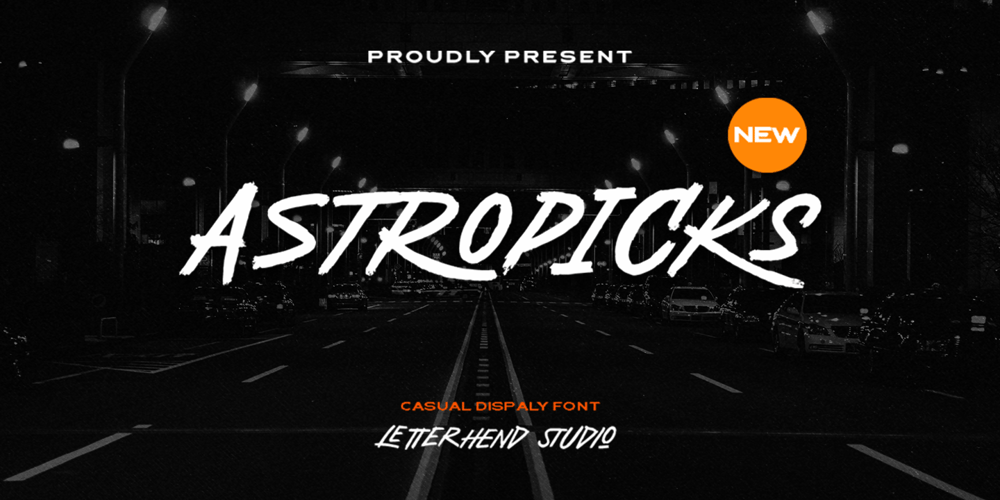
Astropicks Font Family was designed by Hendry Juanda and published by Letterhend. Astropicks contains 1 styles and family package options. Astropicks is a modern and playful typeface which is purposely made for headline, display or logotype. This type of font perfectly made to be applied especially in logo, and the other various formal forms such as invitations, labels, logos, magazines, books, greeting / wedding cards, packaging, fashion, make up, stationery, novels, labels or any type of advertising purpose.Features : uppercase & lowercase numbers and punctuation multilingual alternates & ligatures PUA encoded We highly recommend using a program that supports OpenType features and Glyphs panels like many of Adobe apps and Corel Draw, so you can see and access all Glyph variations. How to access opentype feature : letterhend.com/tutorials/using-opentype-feature-in-any-software/